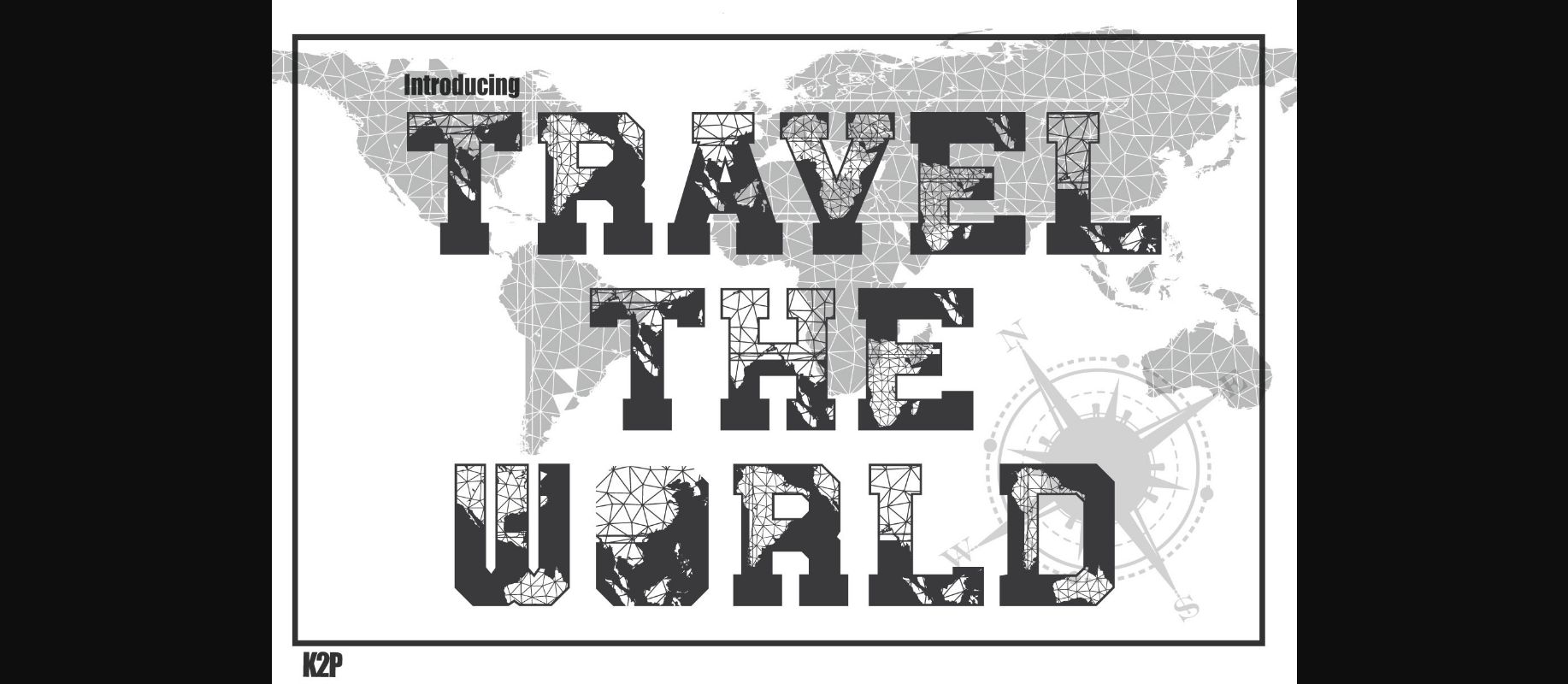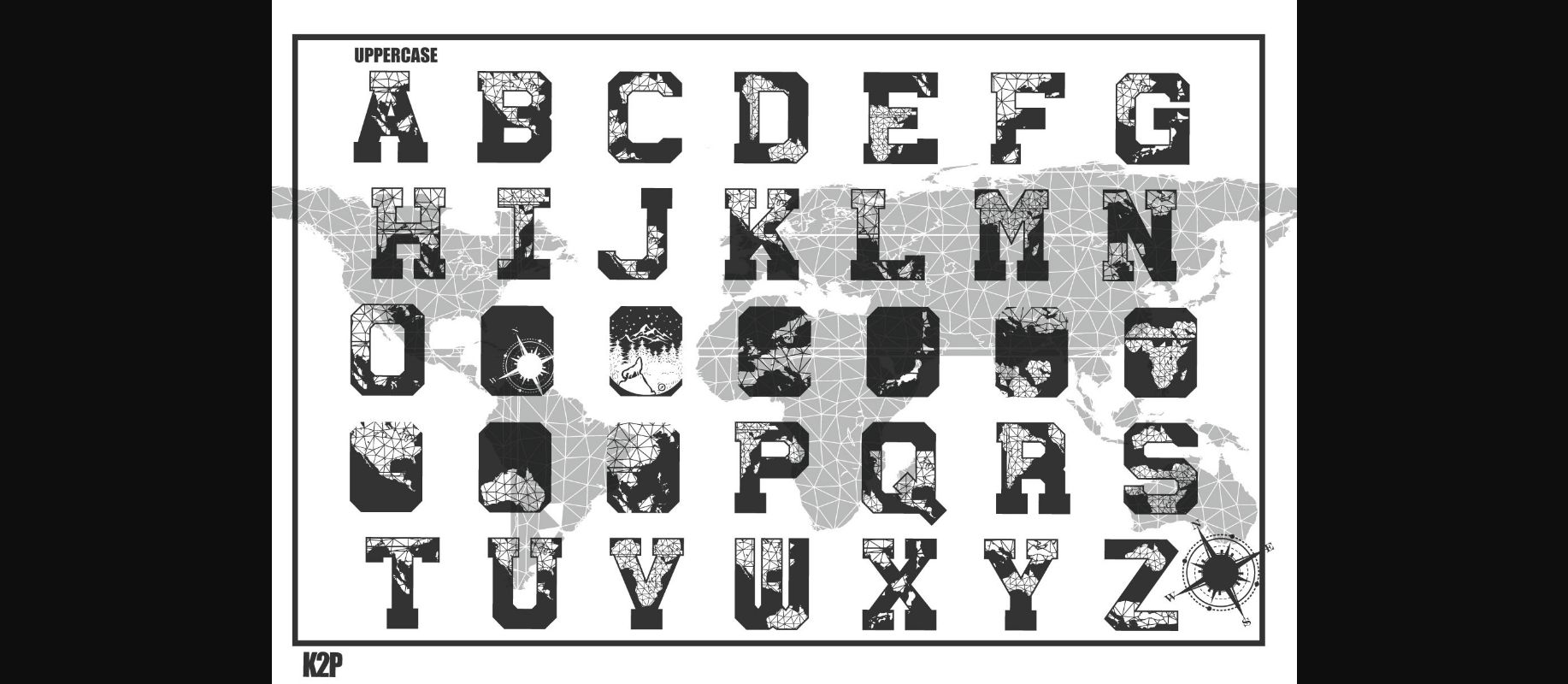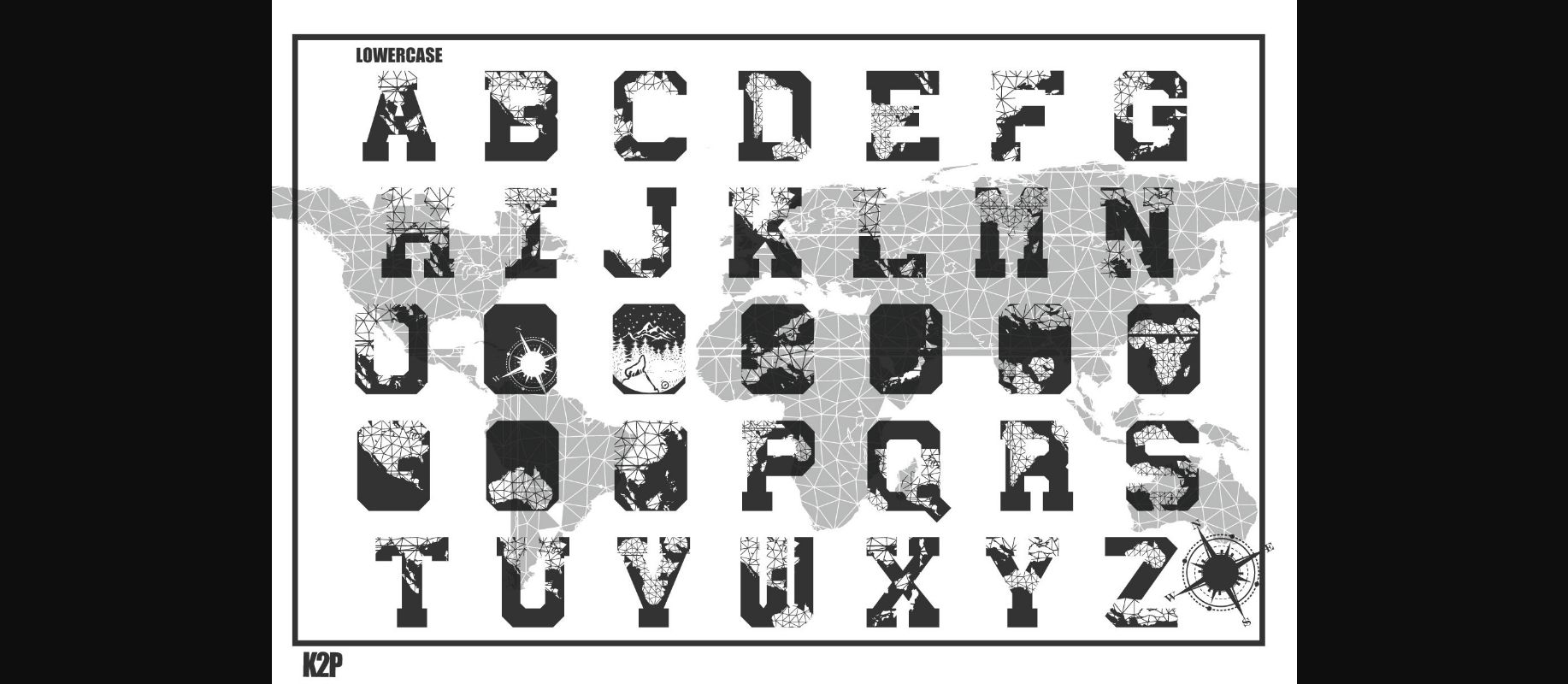
About Travel the World Font
Travel The World is a bold and assertive decorative font. It is perfect for various design ideas related to fishing, camping, traveling, etc. Have fun with this beautiful font, and explore its endless variations!